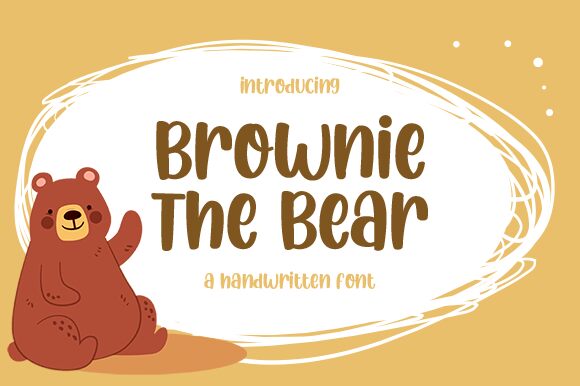
Brownie The Bear
Brownie The Bear is a bold, cartoon-style handwritten display font designed by Aldi Raya Pradipta. Its unique design makes it perfect for creating playful and eye-catching logos, posters and designs. It's also great for adding a whimsical touch to greeting cards, invitations and children's books.